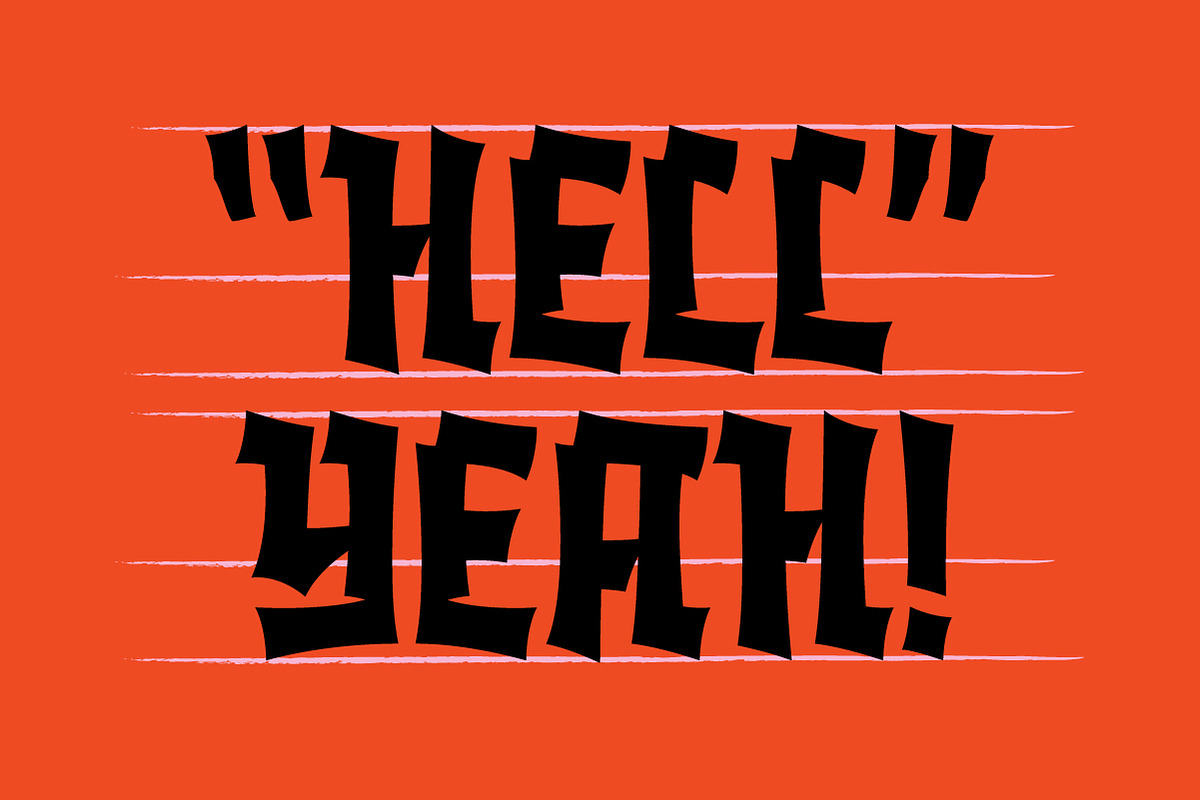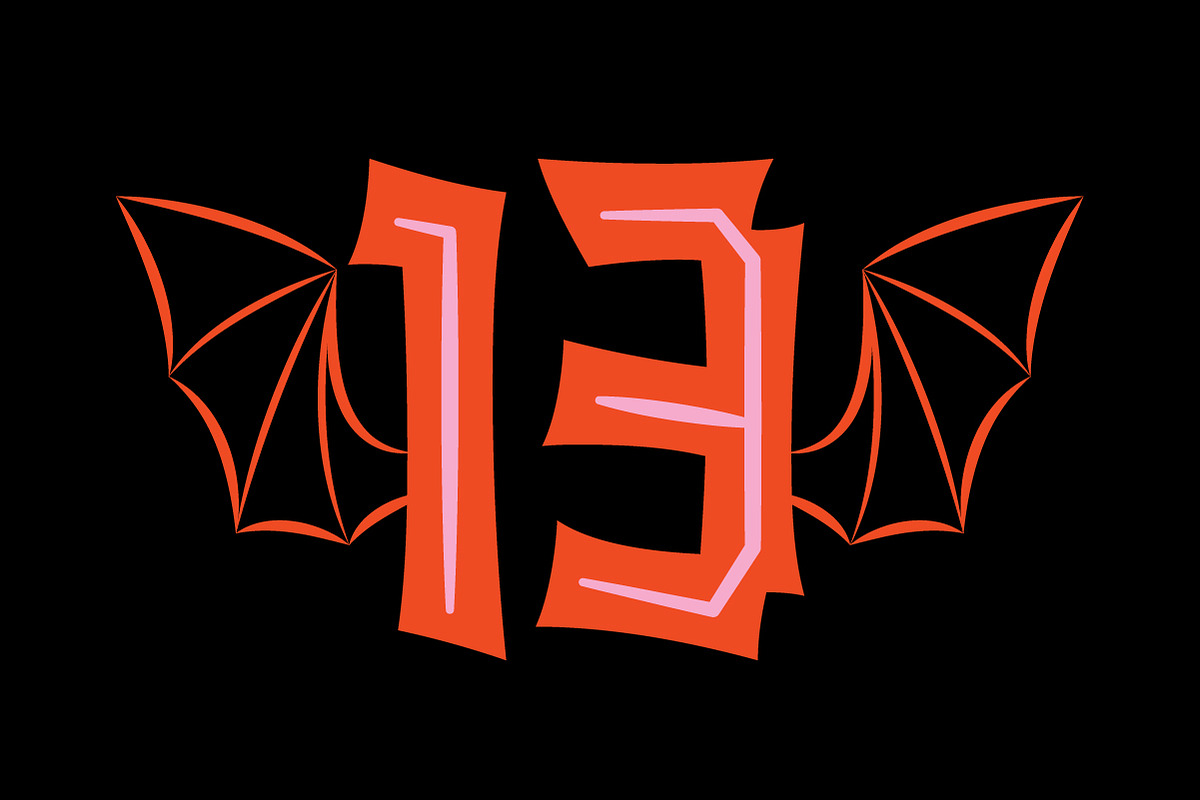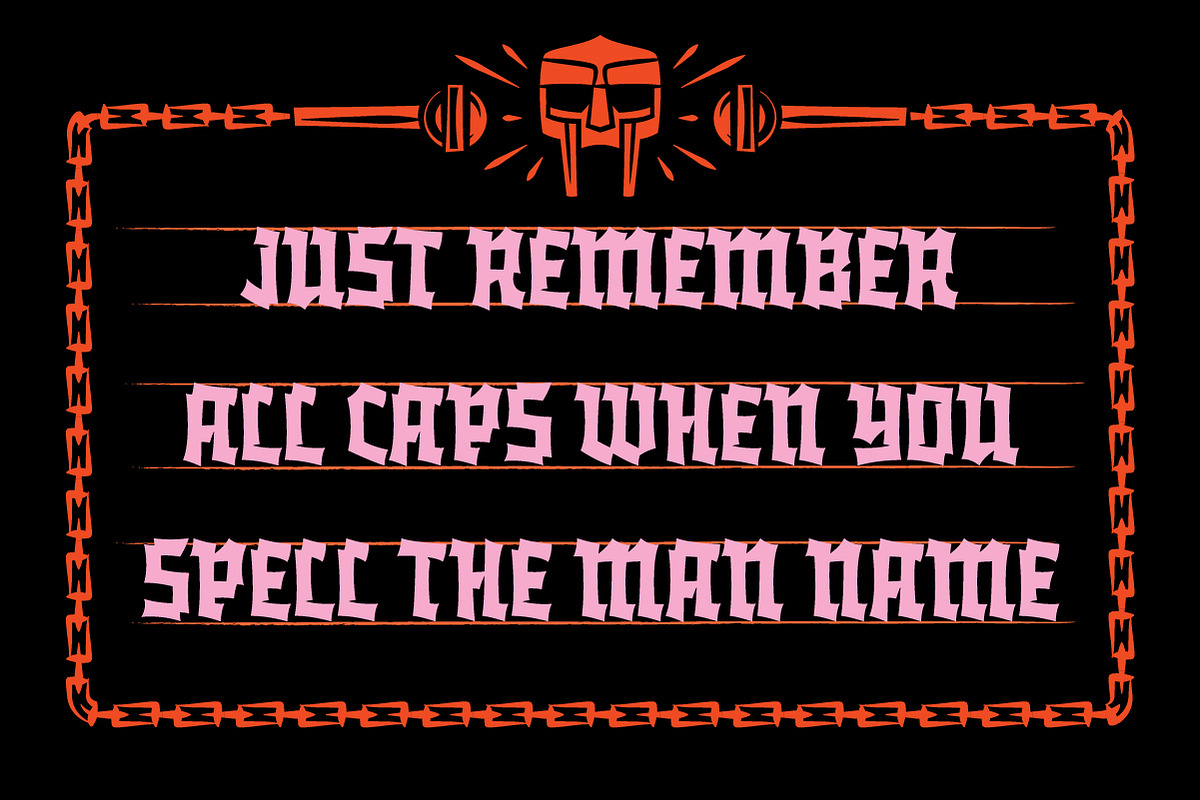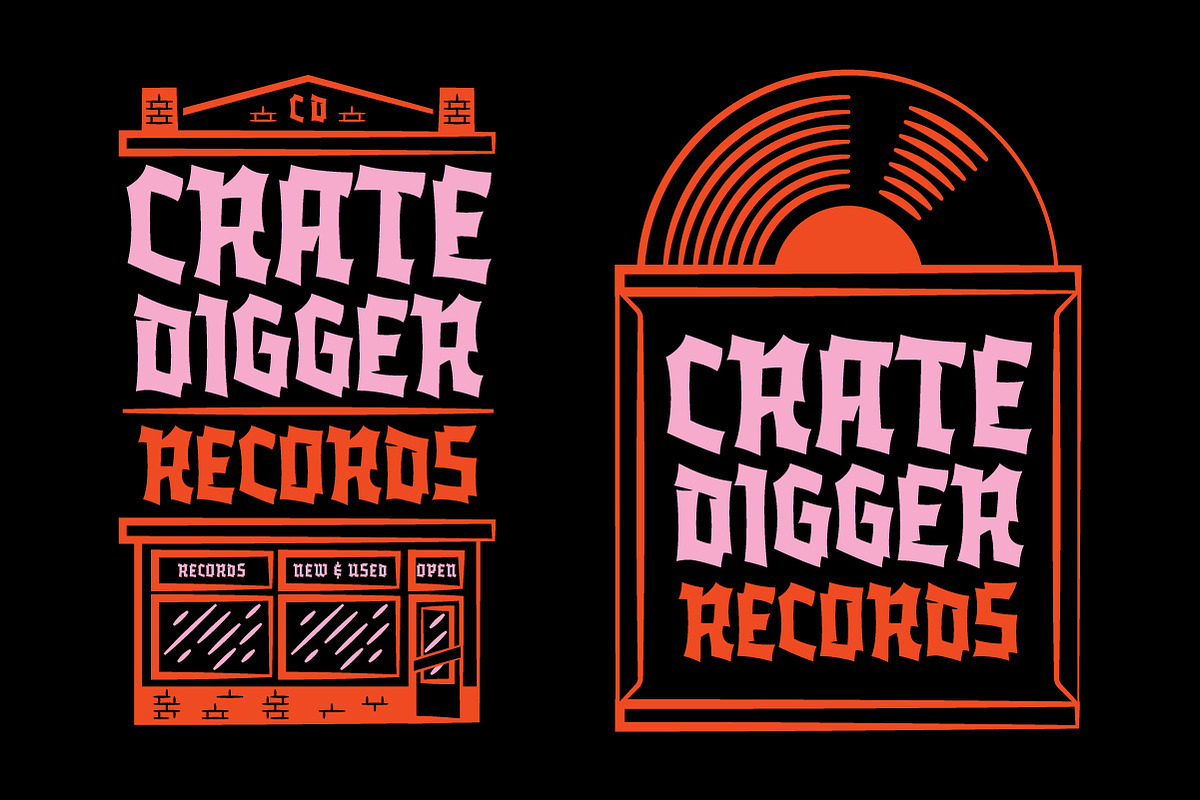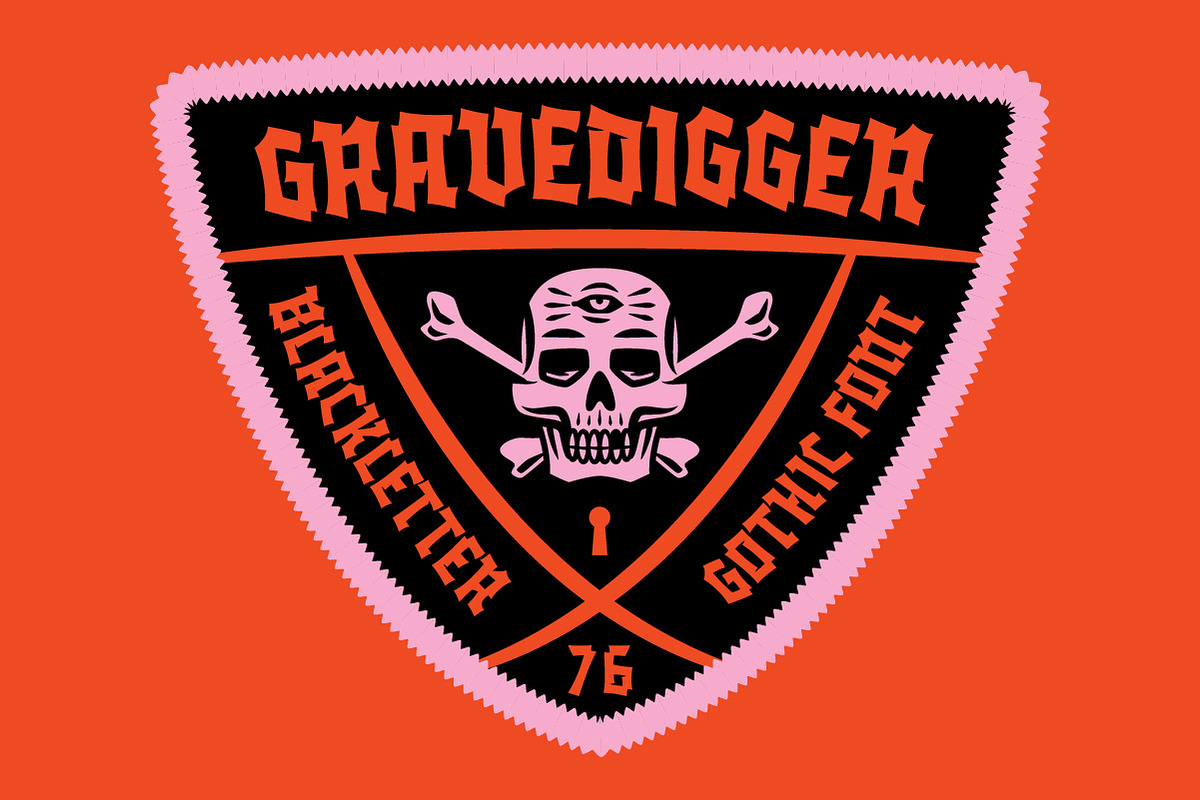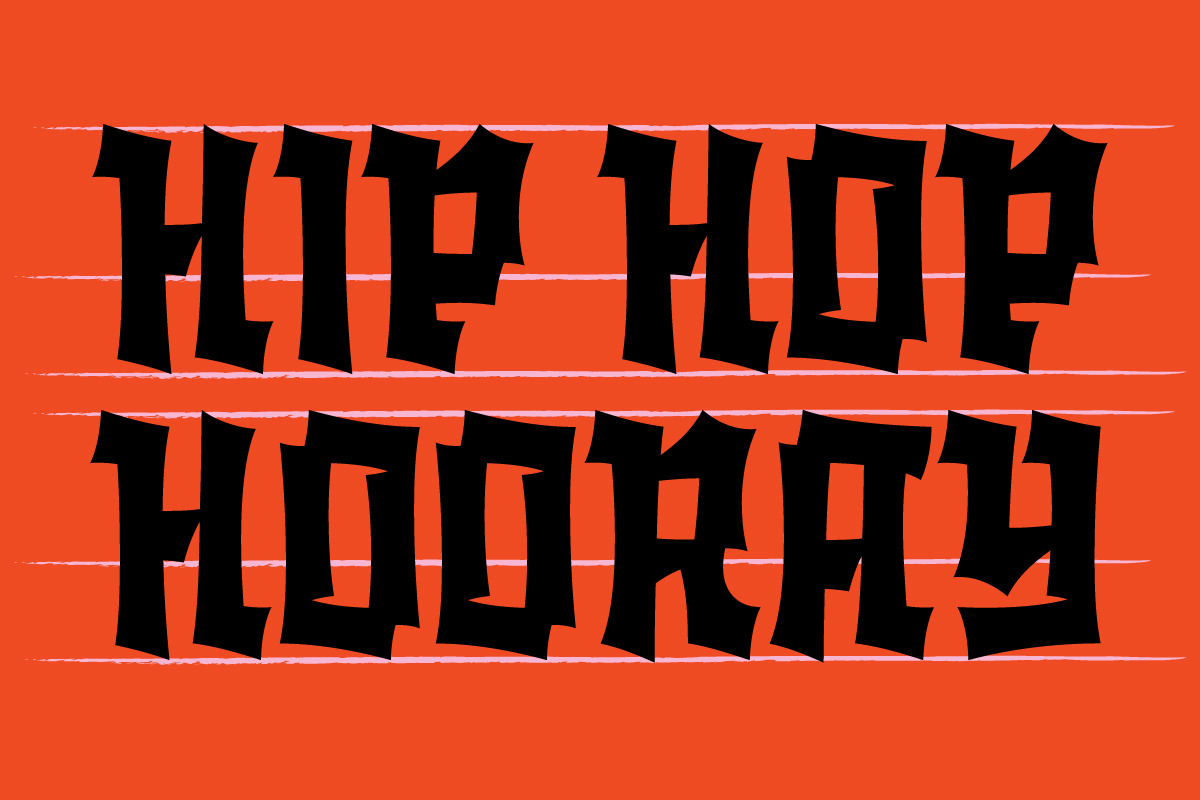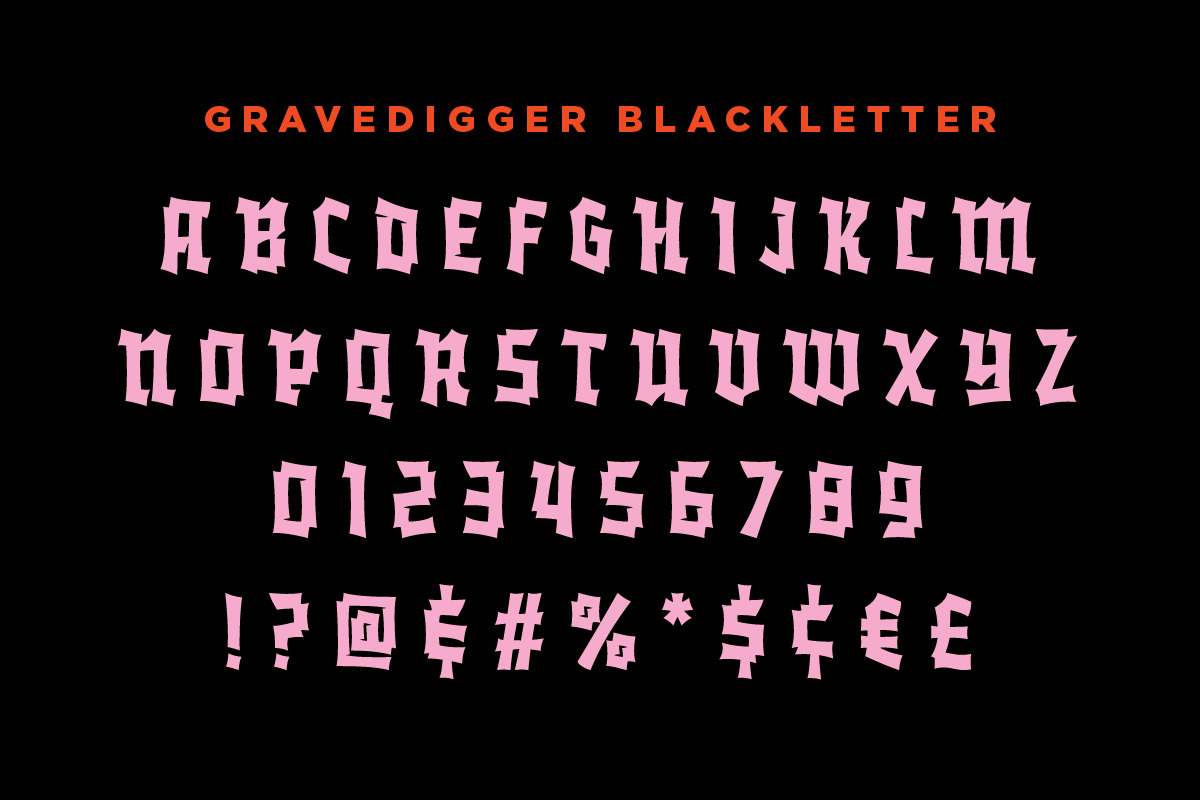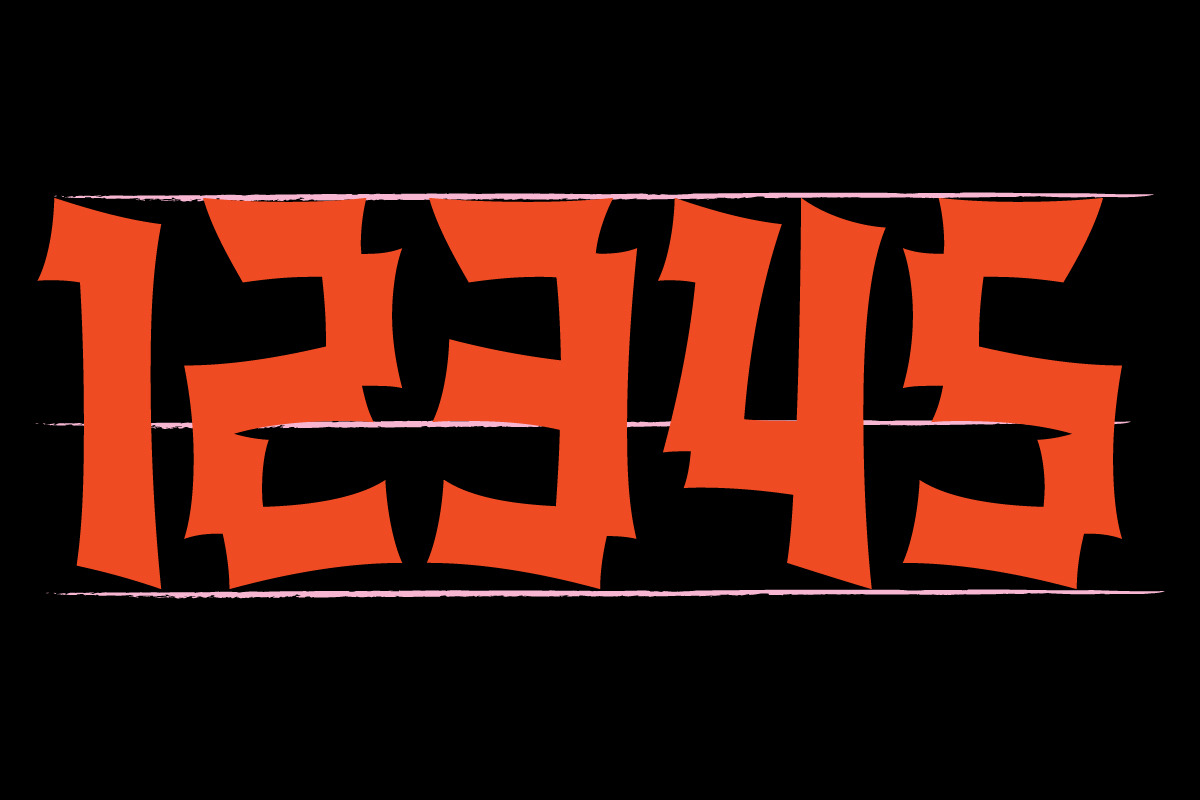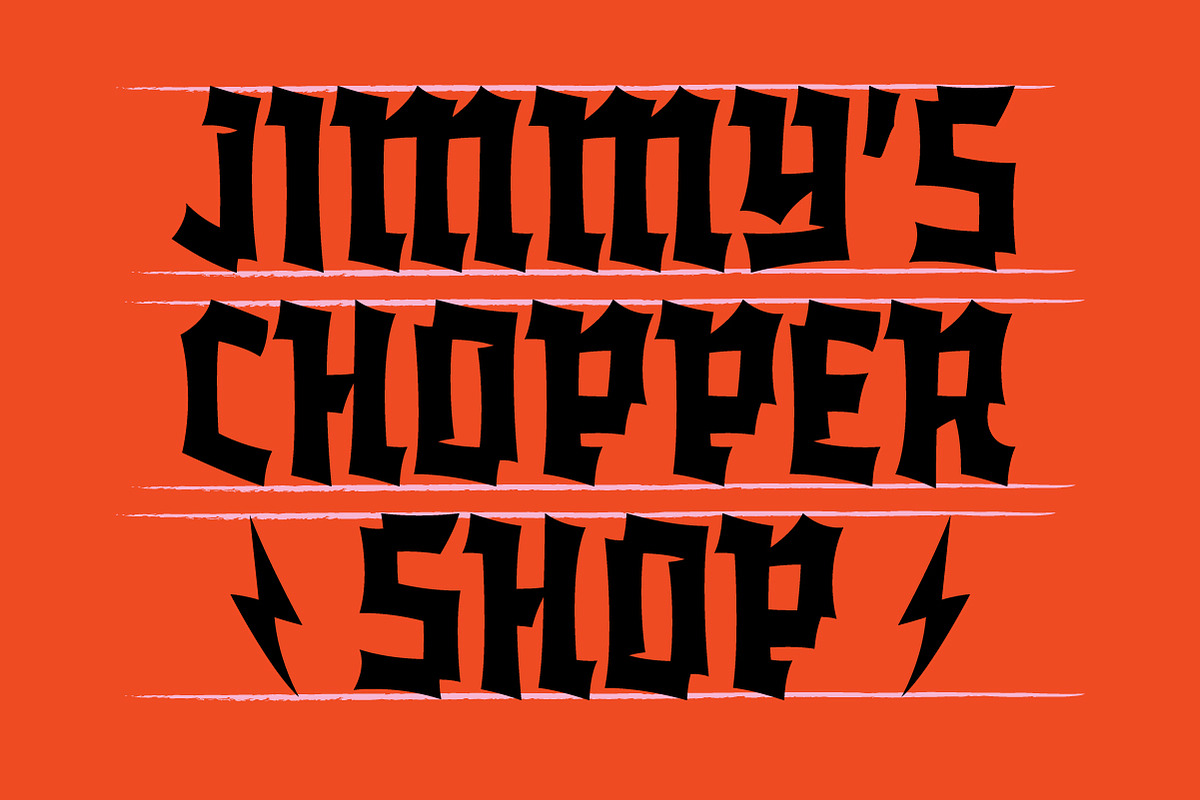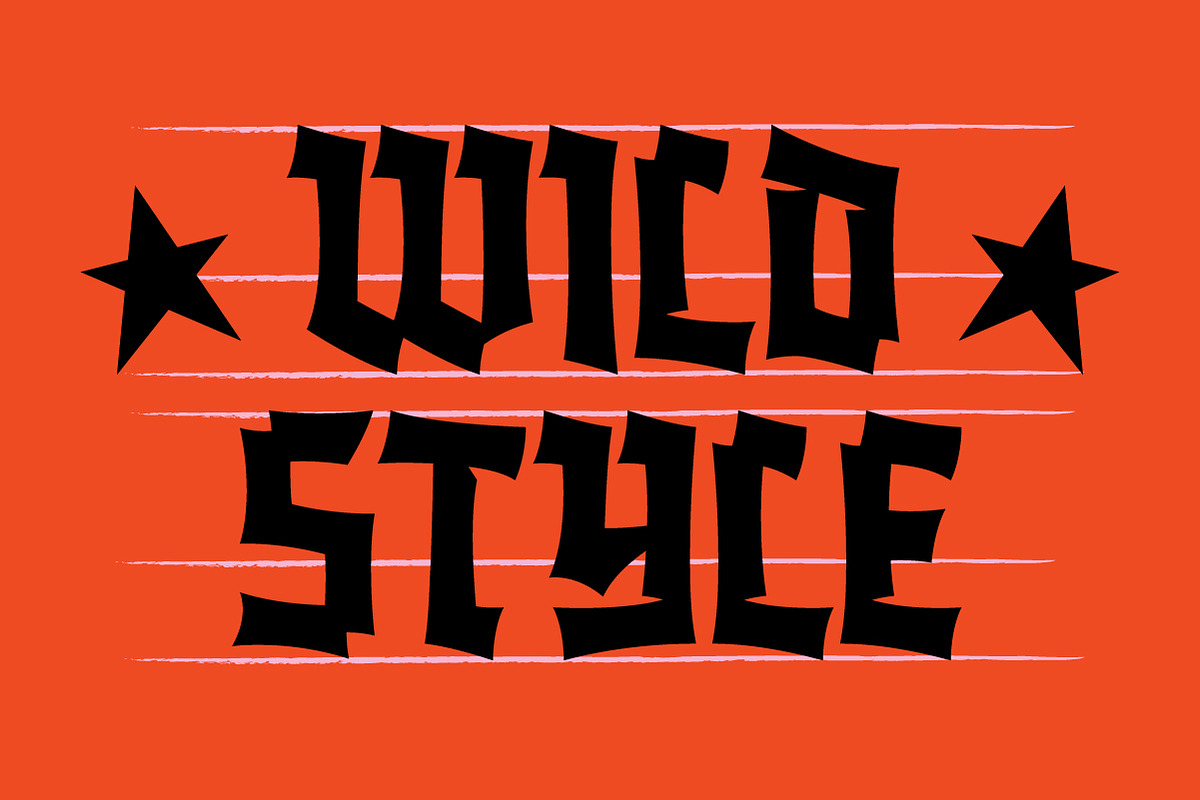
Grave Digger
Most blackletter fonts look good… until you try to read them. Especially when you need to use them in uppercase to wrap around a badge or lock-up design. In most cases, I’ve preferred the simplicity of the lowercase letter forms. So I’ve made the uppercase Blackletter I’ve been searching for.
Gravedigger is a bold uppercase blackletter font built for clarity without losing its edge. Designed with legibility in mind, it balances traditional gothic form with a modern, stripped-back structure, making it perfect for branding, apparel, and music merch.